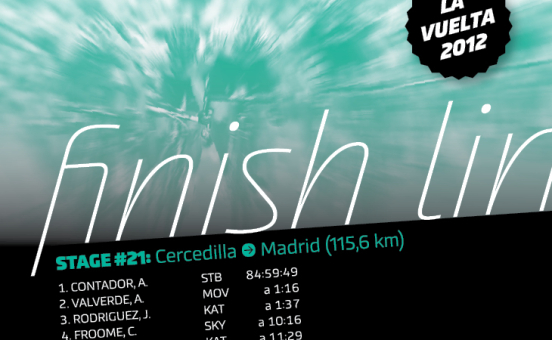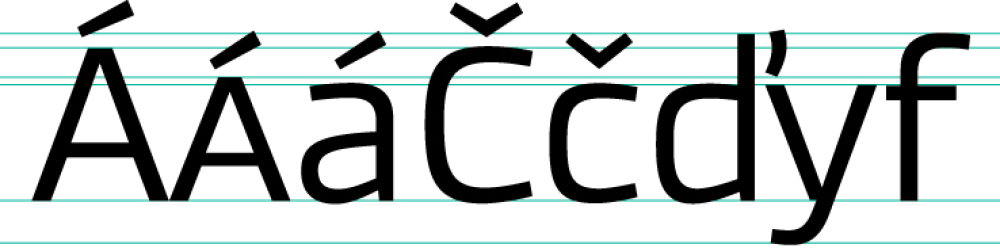
Akceler
Akceler is the system of fonts, that will be used primary in sport. Elasticity of glyphs reflected an adrenalinous shapes of latest bikeframes, skies or sportcars. Maximum open arches guaranteed good readability in very small sizes. Softness of lowercase is at uppercase balanced in bottom arches, that are subtly kicked-up. Numerals are an important component of sport communication, so here have they expressive design, different from numerals of book typefaces. Every font have 9 kinds of numerals. Character case contains sport icons and othes signs creating the sport feeling. Title „Akceler“ represent acceleration, which is characteristic attribute of this typeface.
● 24 styles (2 alternatives, 3 grades of dynamics, 4 weights)
● over 1 000 glyphs per font
● 9 kinds of numerals
● icons of sport equipment
● 8 stylistic sets
● 8 kinds of arrows
● 23 OT features
● support of latin languages